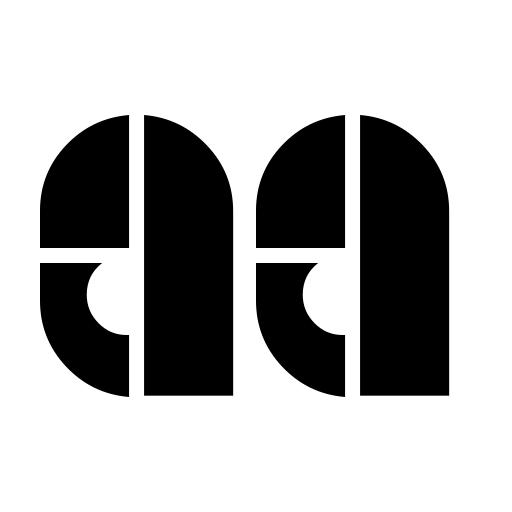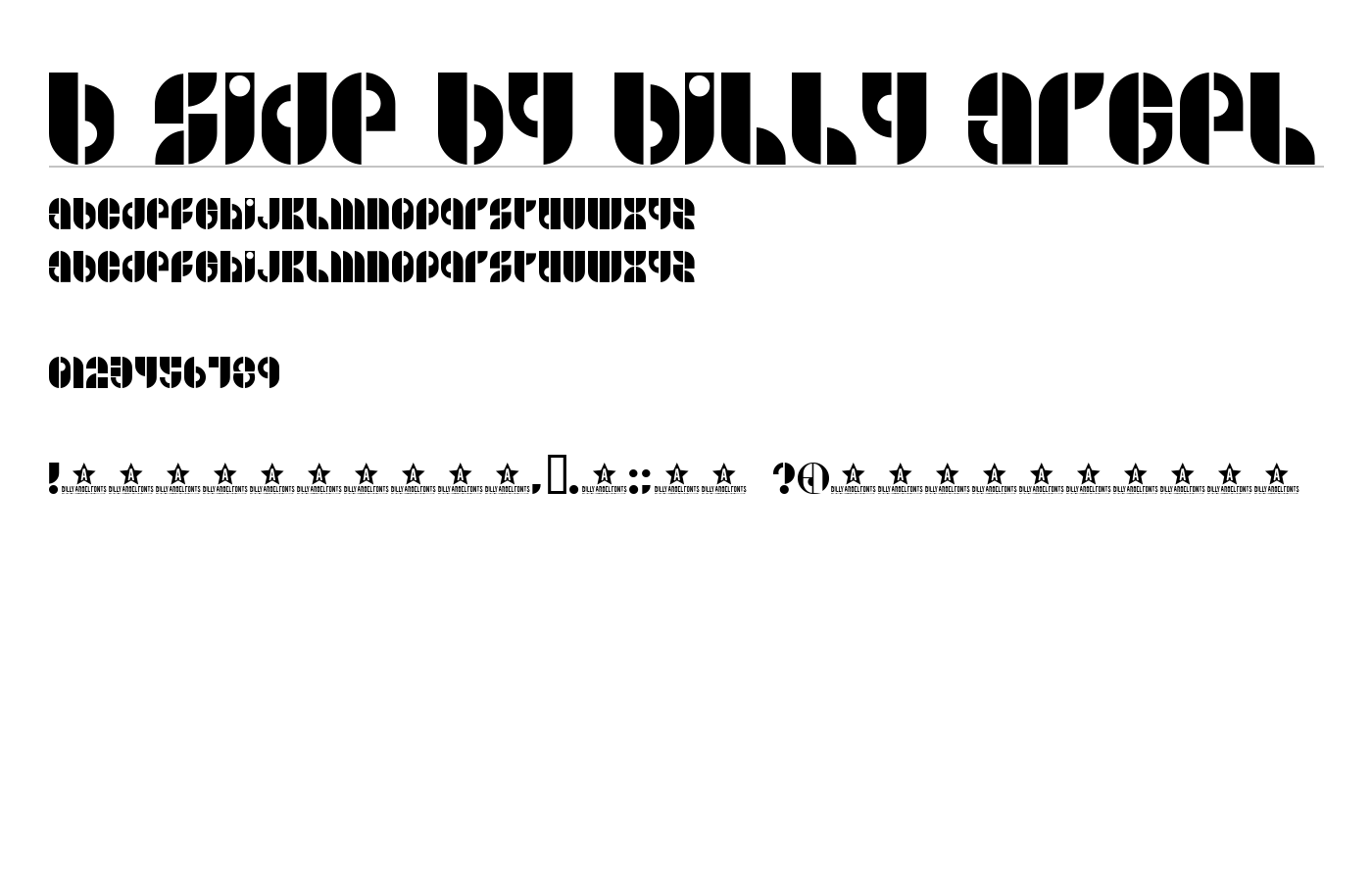
B SIDE is a bold, geometric sans serif font with a striking, stencil-like appearance created by strong contrasts of solid and negative space. Its condensed letterforms, unique cutouts, and high x-height give it a modern, avant-garde feel that works best for attention-grabbing headlines, logos, and creative branding where a distinctive, futuristic style is desired. This font brings a bold and edgy personality, perfect for projects seeking to stand out with a contemporary and artistic vibe.
B SIDE Font
About B SIDE Font